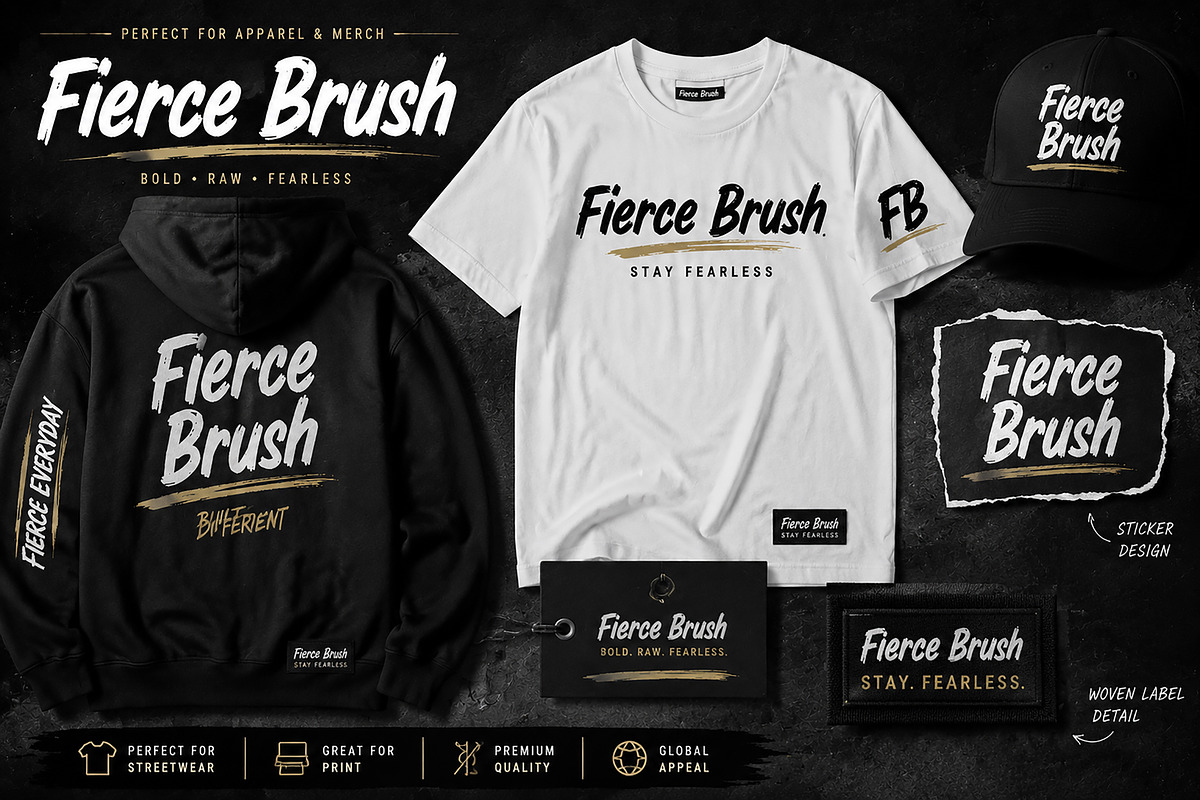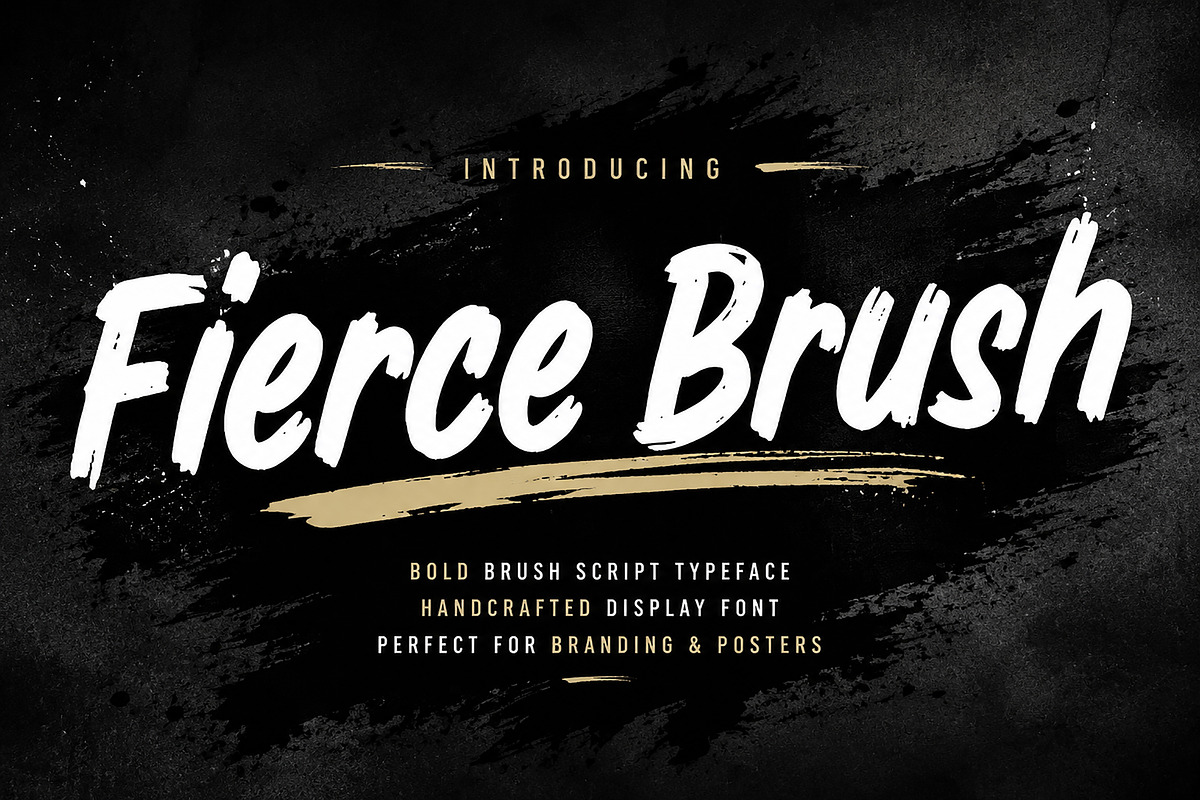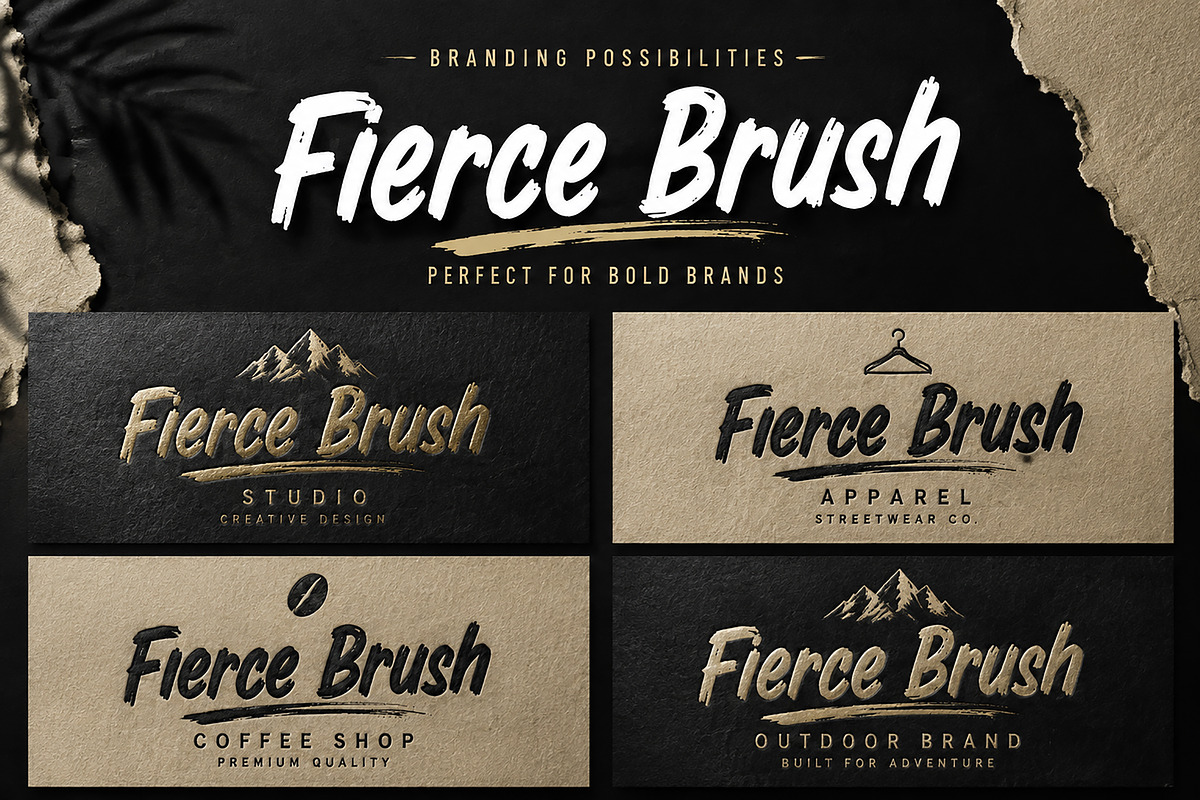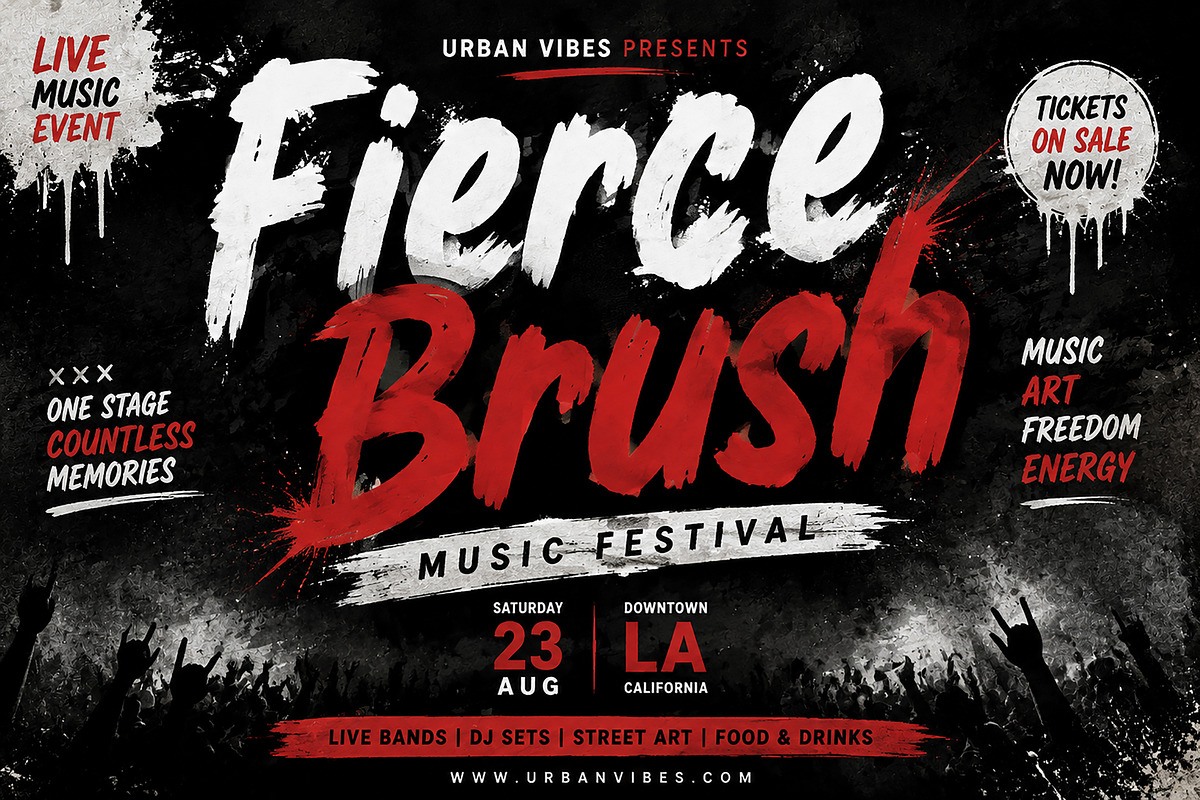
Fierce Brush
Fierce Brush – Bold Brush Script Typeface
Fierce Brush is a powerful handmade brush script font designed for creators who want to add a bold, energetic, and authentic handcrafted feel to their designs.
With its rough brush texture, dynamic strokes, and strong visual personality, Fierce Brush is perfect for creating eye-catching branding, logos, posters, apparel designs, sports graphics, packaging, social media artwork, and creative projects.
This typeface brings an urban, modern, and fearless style that works beautifully for brands looking for a strong identity with a handmade touch.
Logo & Brand Identity
Clothing & Apparel Design
Streetwear Graphics
Poster Design
Music & Event Artwork
Sports Branding
Product Labels
Merchandise Design
Creative Advertising
✔ Bold Brush Script Style
✔ Handcrafted Brush Texture
✔ Strong & Dynamic Letterforms
✔ Modern Urban Aesthetic
✔ Perfect for Display Use
✔ Professional Creative Typeface
Font Name: Fierce Brush
Font Style: Brush Script Typeface